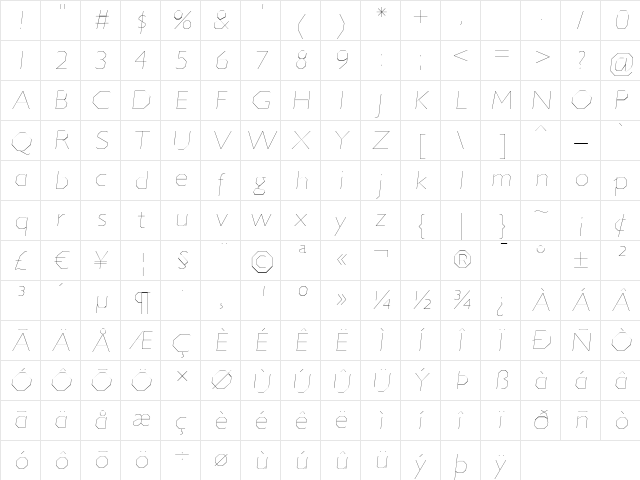
Jillican UltraLight Italic Font Preview
Design Context for Jillican UltraLight Typeface
Jillican UltraLight takes a measured approach to typography — its balanced proportions and neutral character make it a reliable workhorse for both digital and print work. The dynamic lean of this cut emphasises speed and emphasis in any layout. Its slender proportions lend an understated elegance to any composition.
Pro Tip: Use Jillican UltraLight for emphasis, pull quotes, and subheadings where its slanted energy can add rhythm to the layout.